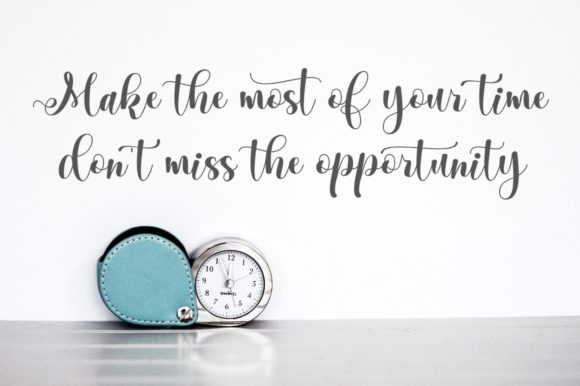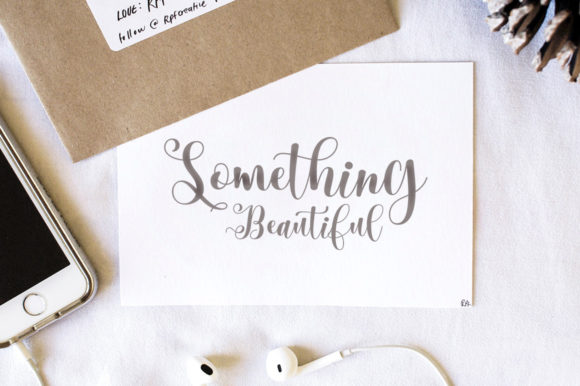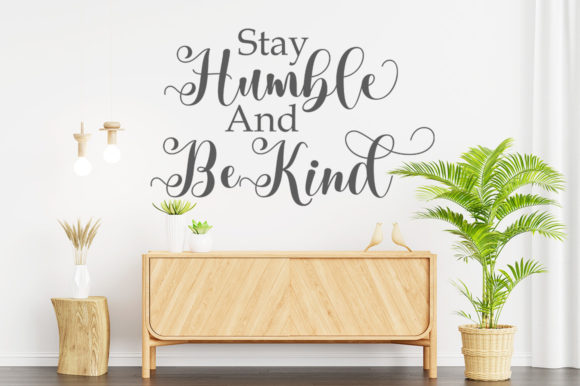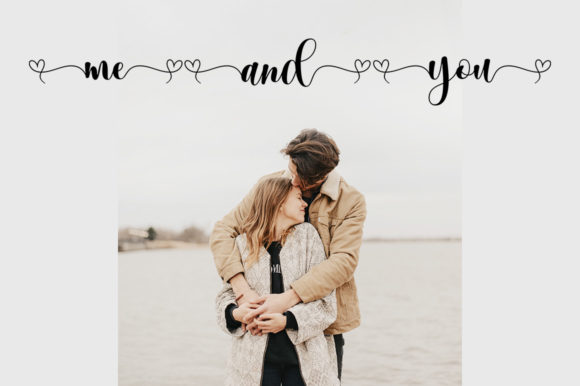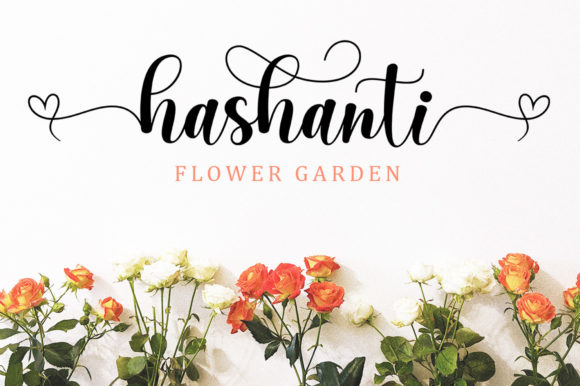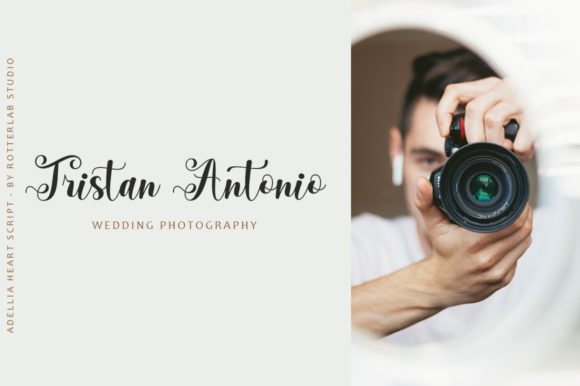
The Quest for the Perfect Font: How Adellia Heart Stole My Heart
I’ll never forget the time I was working on a project for a client who wanted a custom wedding invitation. I had spent hours agonizing over the design, but something was missing. It wasn’t until I realized I was stuck with a bland, generic font that I knew I had to start over. I scoured the internet for the perfect script font, and that’s when I stumbled upon Adellia Heart. ✨
As a designer, I know how crucial it is to find the right font for a project. It can make or break the entire design. That’s why I’m excited to share my experience with Adellia Heart, a highly detailed and chic script font that’s quickly become a favorite in my toolkit.
An Honest Review of Adellia Heart
- ✨ Highly detailed and elegant letterforms that add a touch of sophistication to any design
- ✅ Well-balanced letters that make it easy to read and understand
- 💡 PUA encoded, making it easy to access all glyphs and swashes
- 🎨 Versatile and suitable for a wide range of design projects, from wedding invitations to branding and packaging
While Adellia Heart is an amazing font, there are a few things to keep in mind: 🤔
- ⚠️ Some users may find the font a bit too ornate for certain projects, such as body text or captions
- ⚠️ The font may not be suitable for very small font sizes, as some details may get lost
A Practical Guide to Using Adellia Heart
The Story Behind Adellia Heart
Adellia Heart was designed with the intention of creating a beautiful and elegant script font that would add a touch of sophistication to any design. The designer aimed to create a font that was both highly legible and visually stunning, with intricate details and swashes that would make it stand out. 💕
A: PUA (Private Use Area) encoding is a way of mapping font characters to a specific range of Unicode values, making it easier to access and use font glyphs and swashes. This means that users can easily access all the characters and features of Adellia Heart without having to use complex keyboard shortcuts or software. 🤩
Q: Is Adellia Heart suitable for body text?
A: While Adellia Heart is a beautiful font, it may not be the best choice for body text due to its ornate and decorative nature. It’s better suited for headings, titles, and short paragraphs where you want to make a statement. 📄